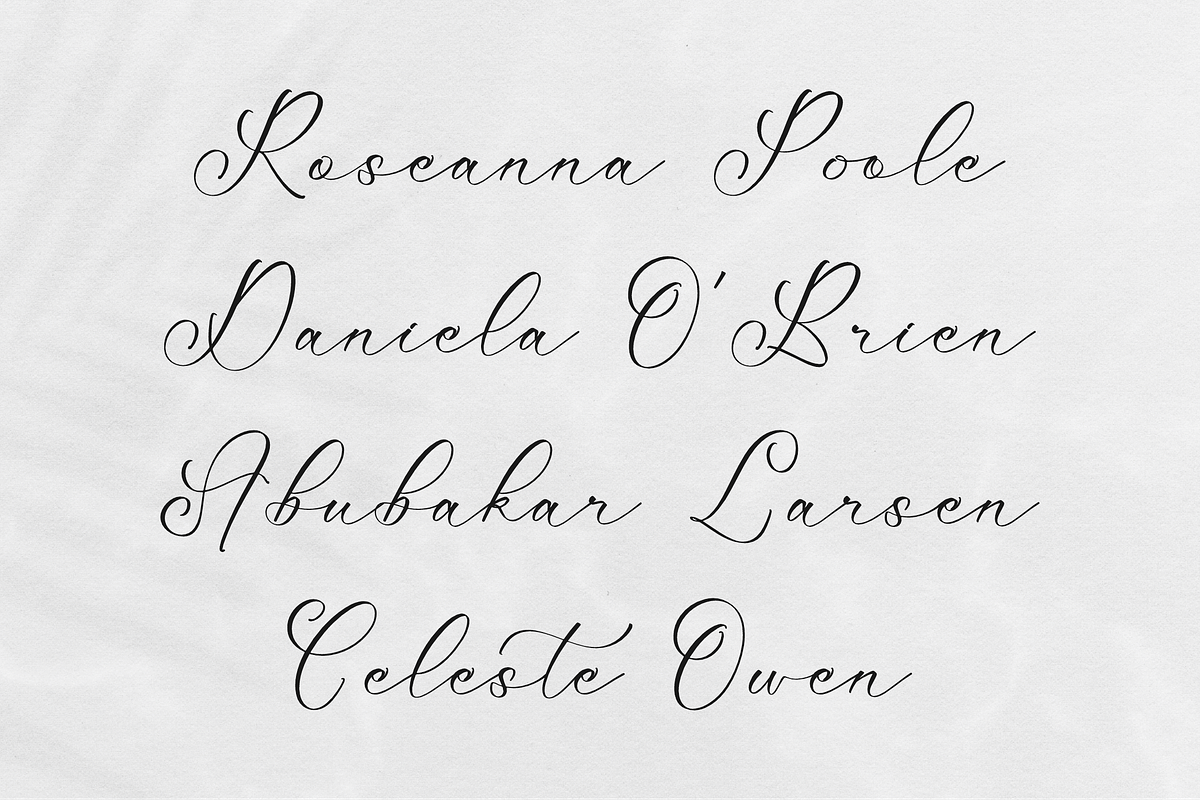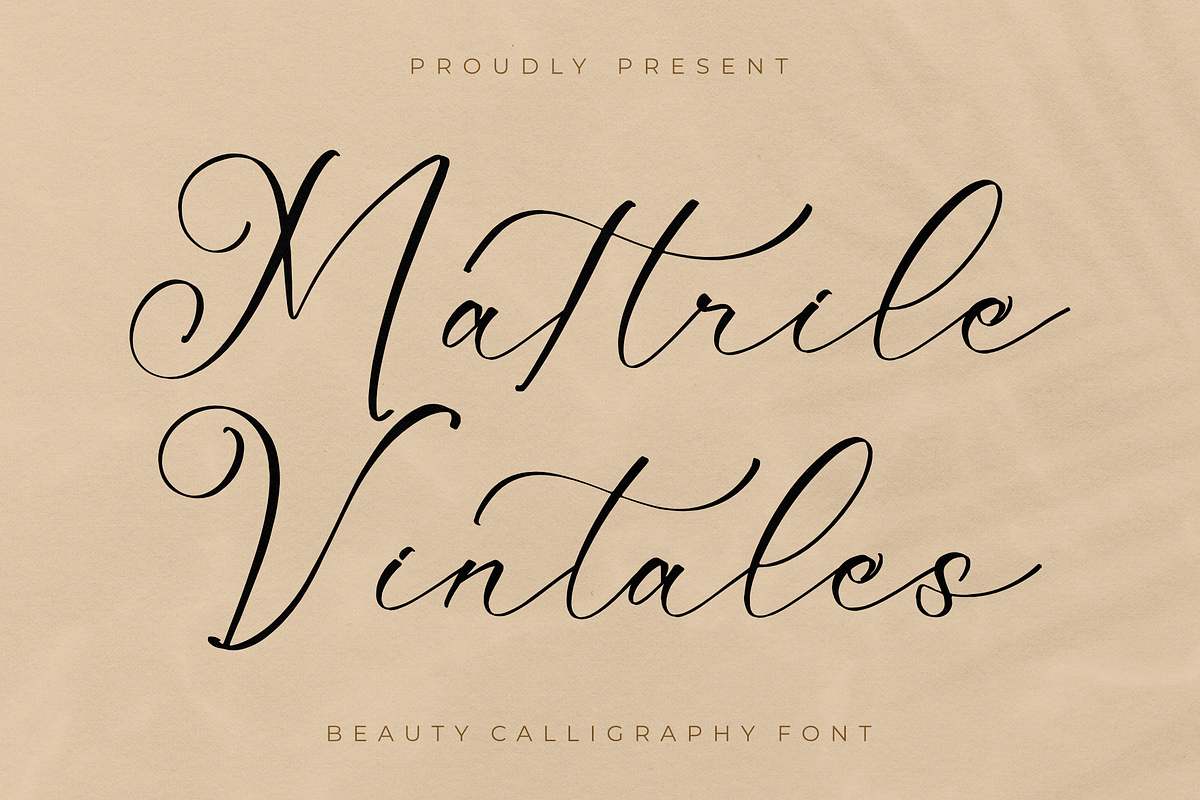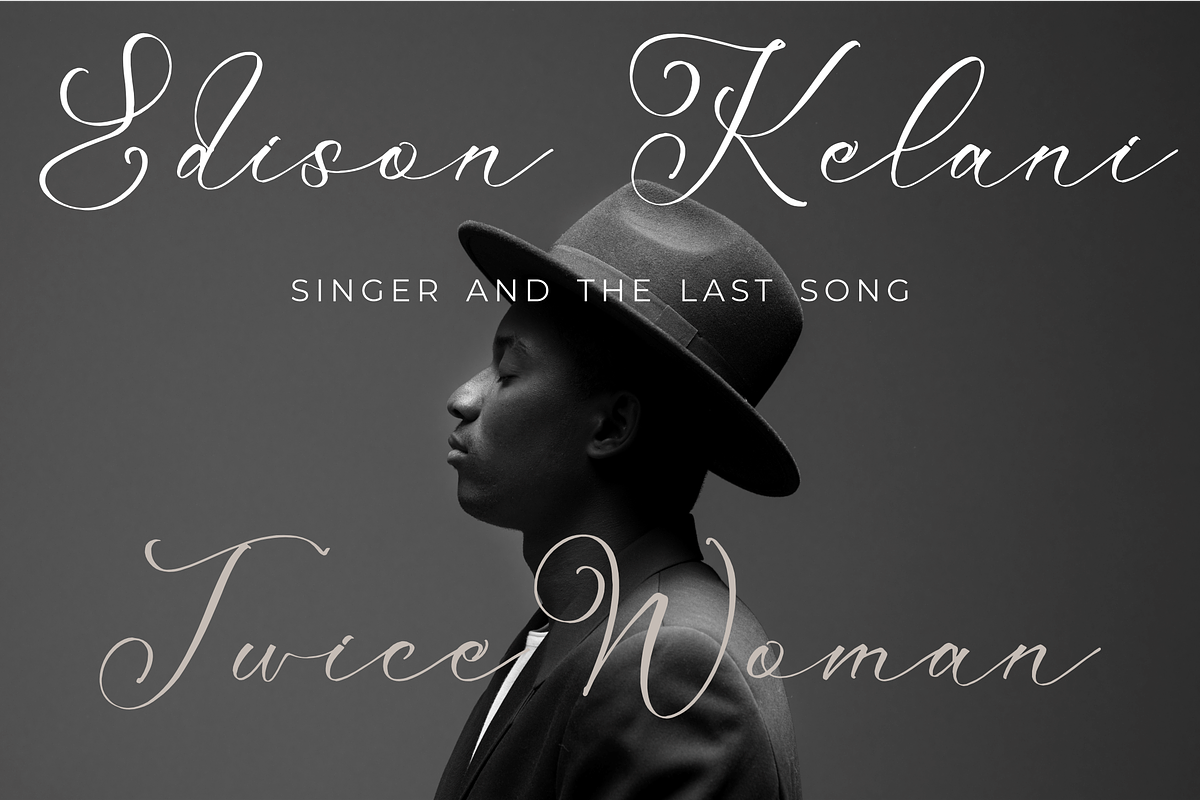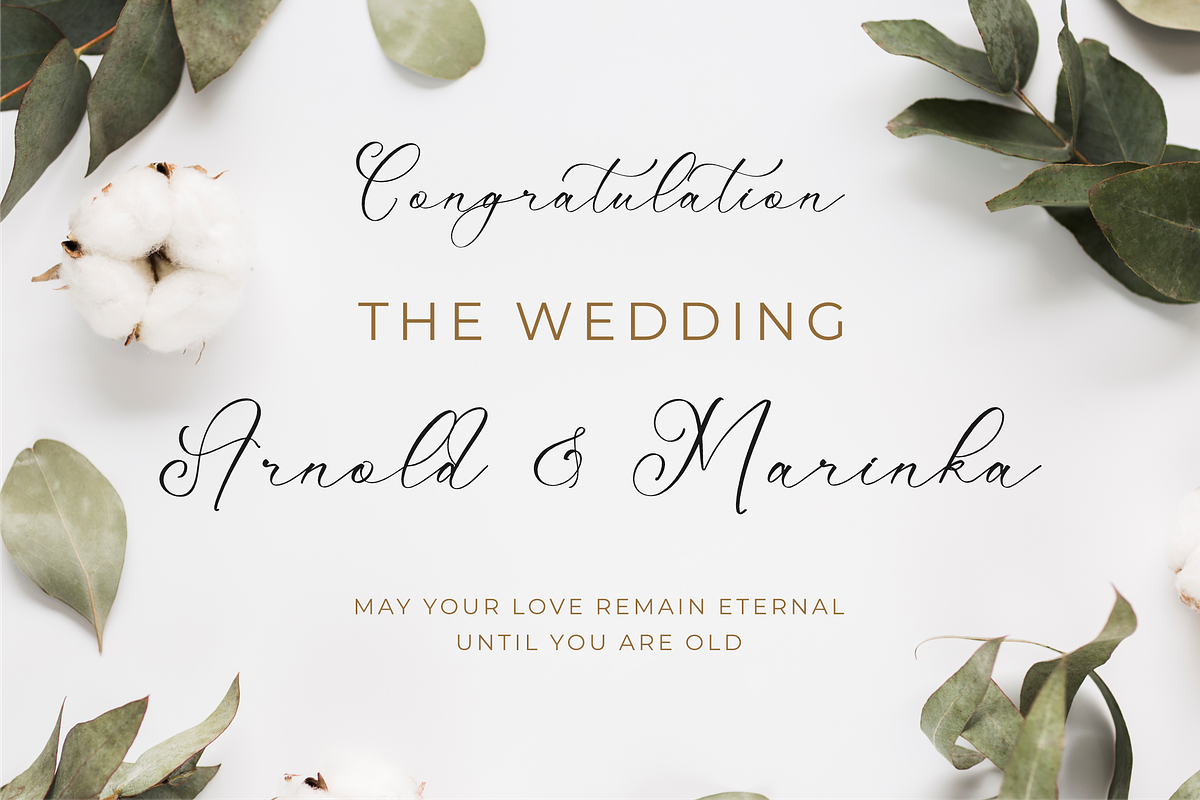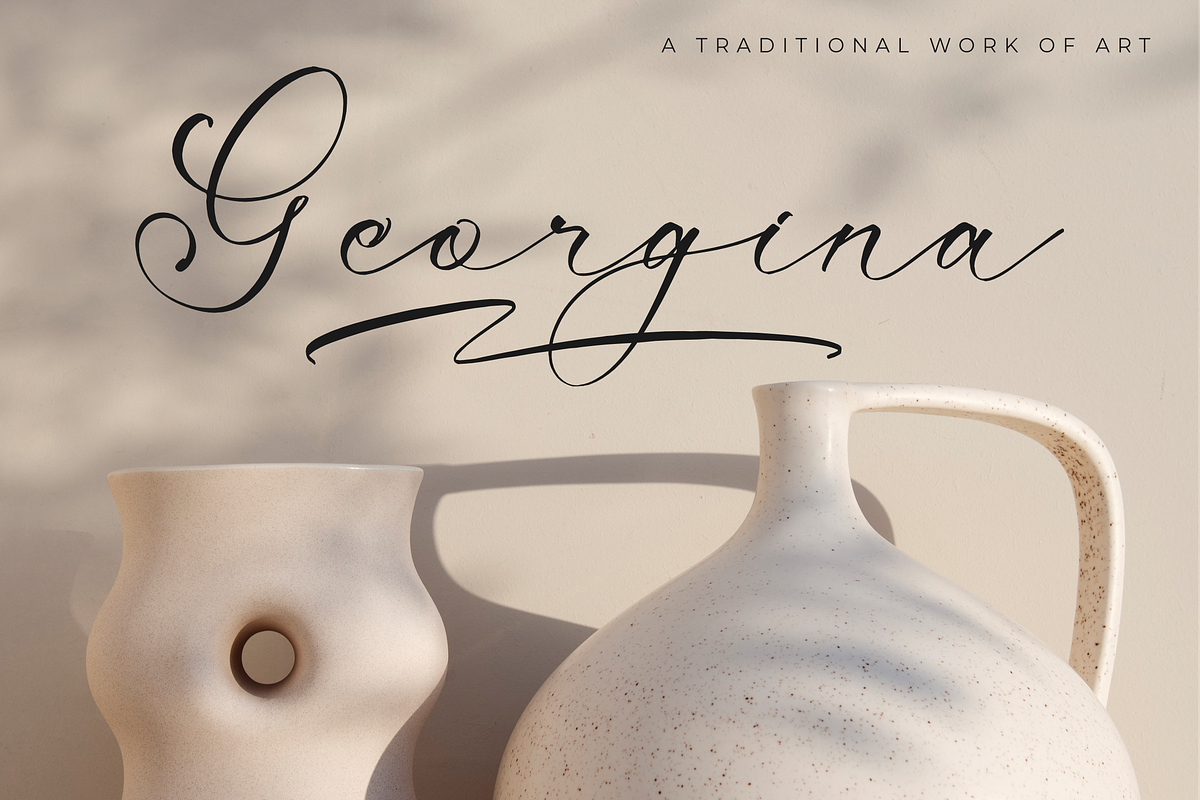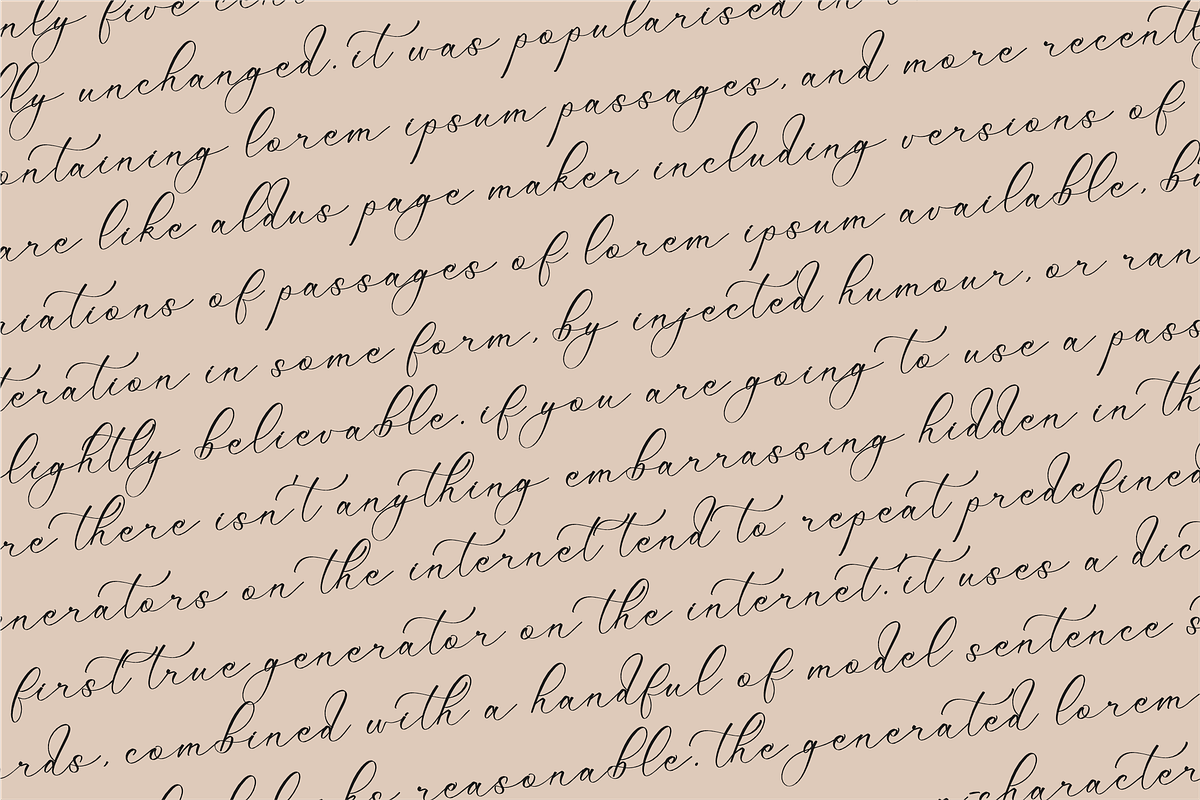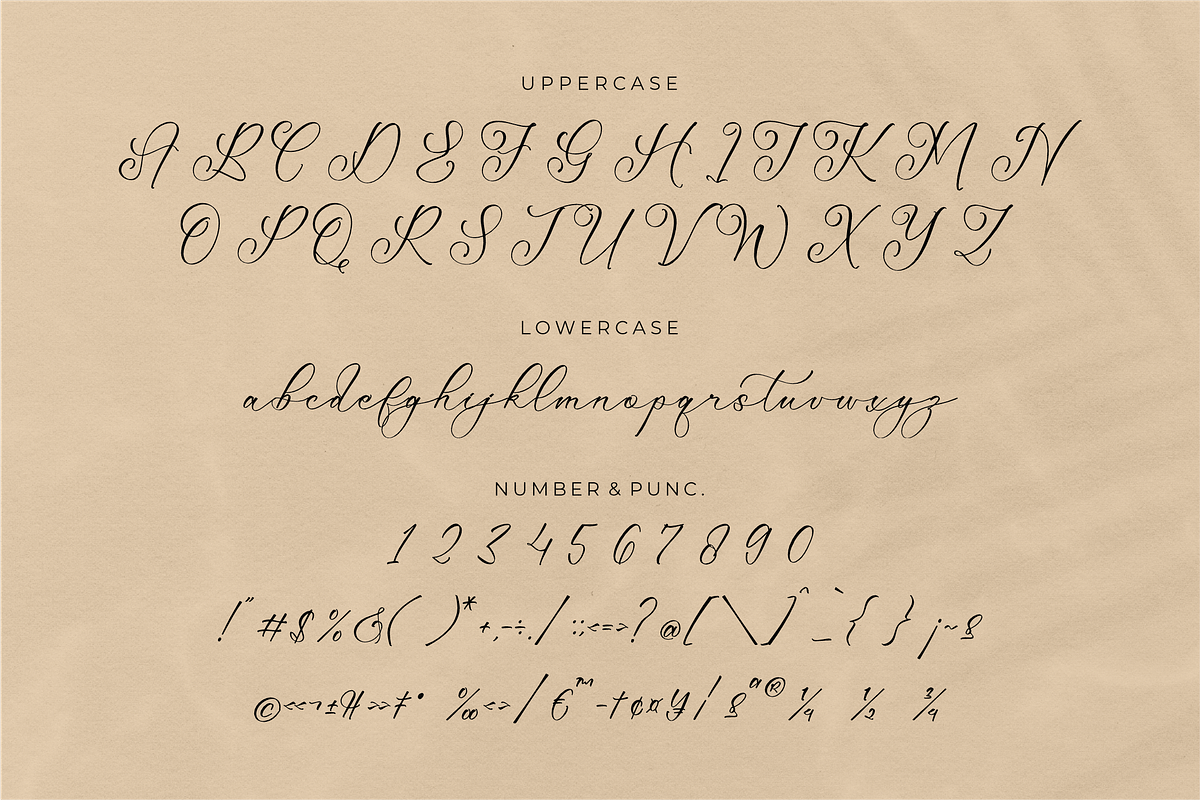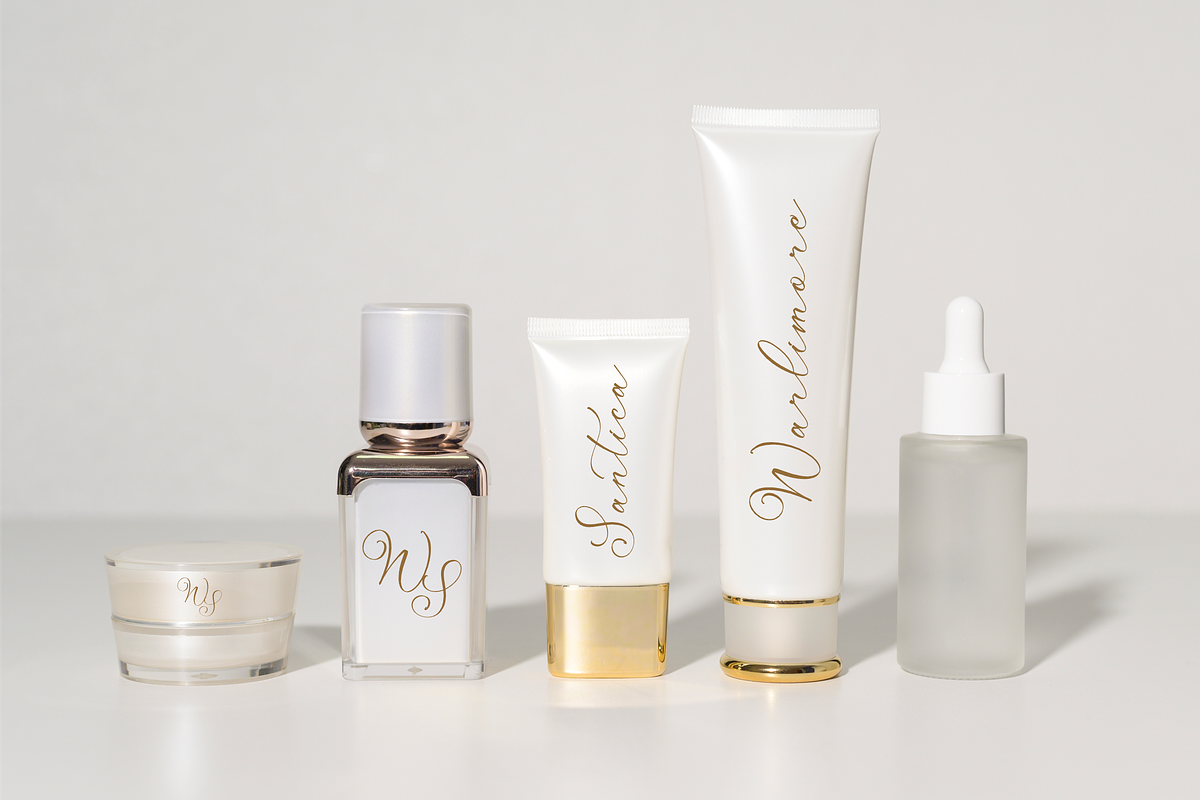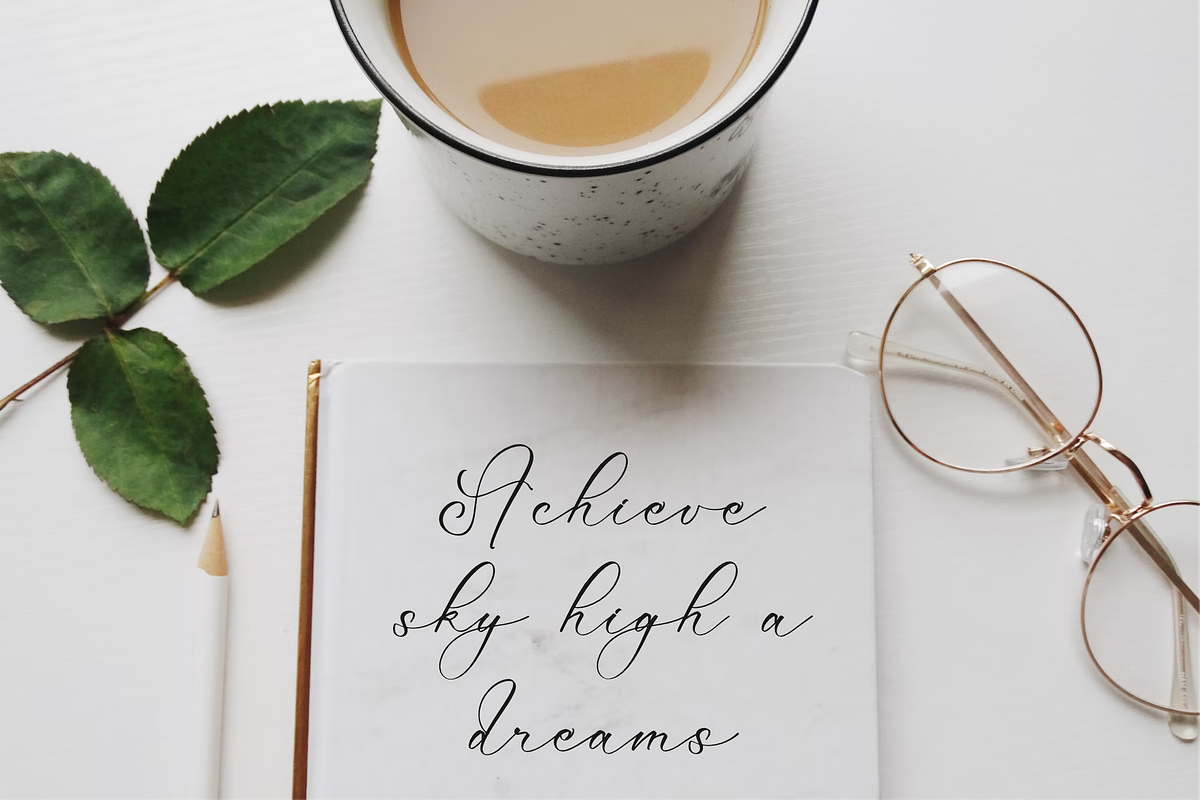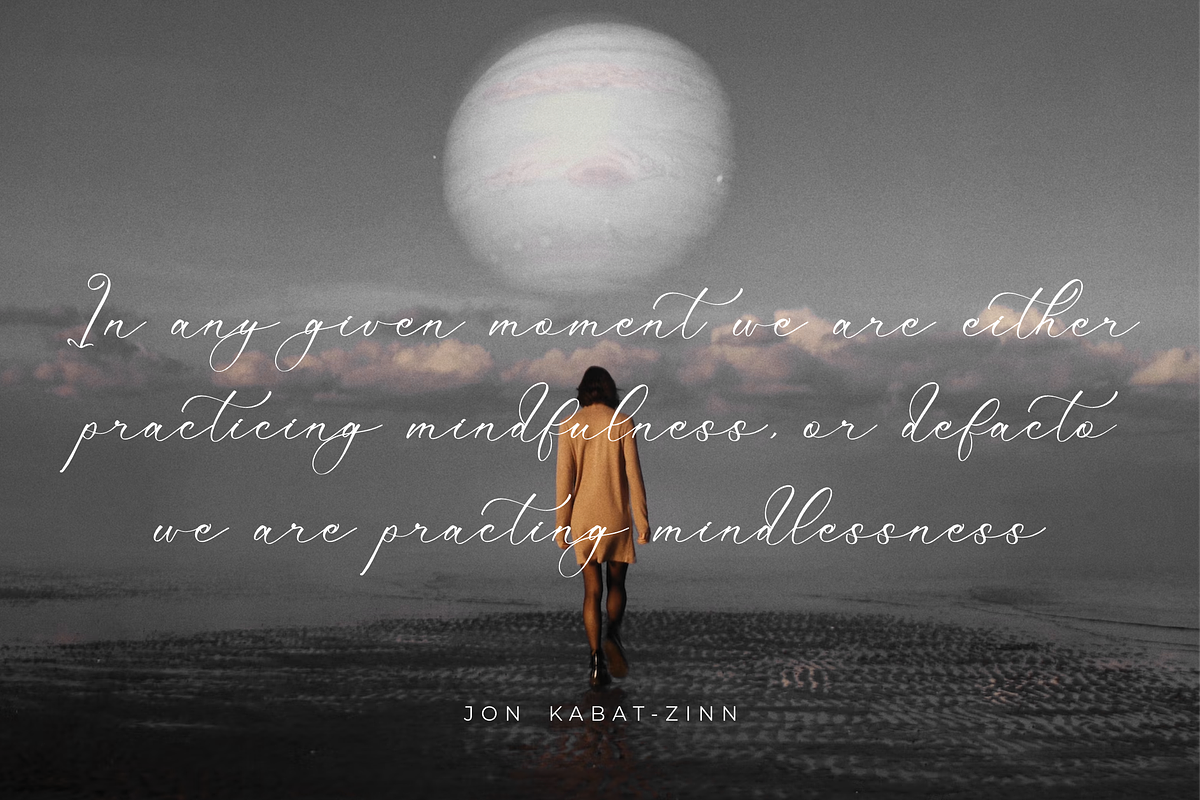
Mattrile Vintales Beauty Calligraphy
Proudly present Mattrile Vintales - Beauty Calligraphy Font , created by Storytype, A luxury script that has own unique style & modern look. This typeface is perfect for an elegant & luxury logo, book or movie title design, fashion brand, magazine, clothes, lettering, quotes, and so much more.